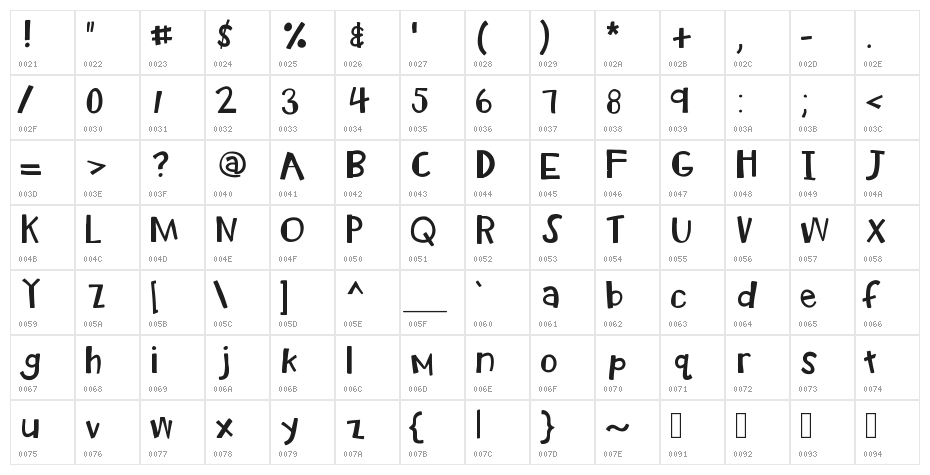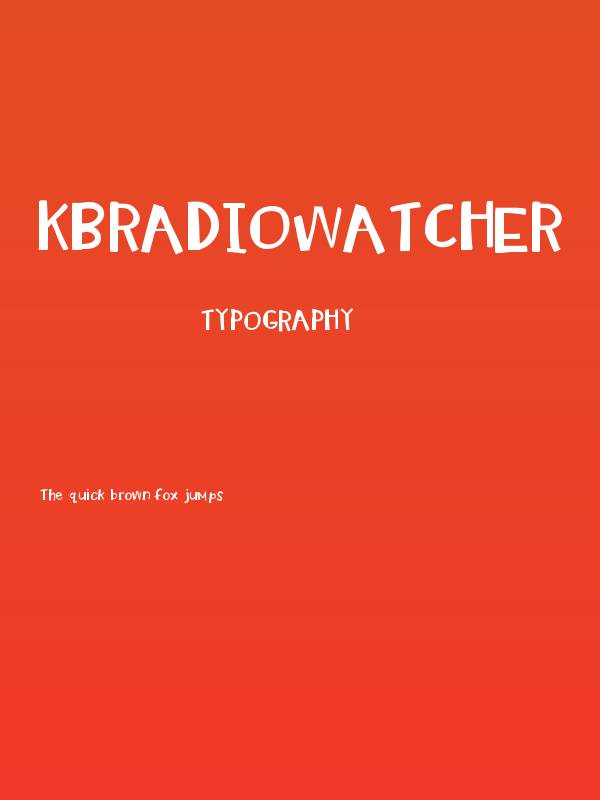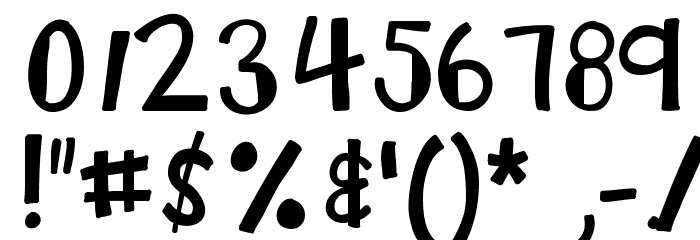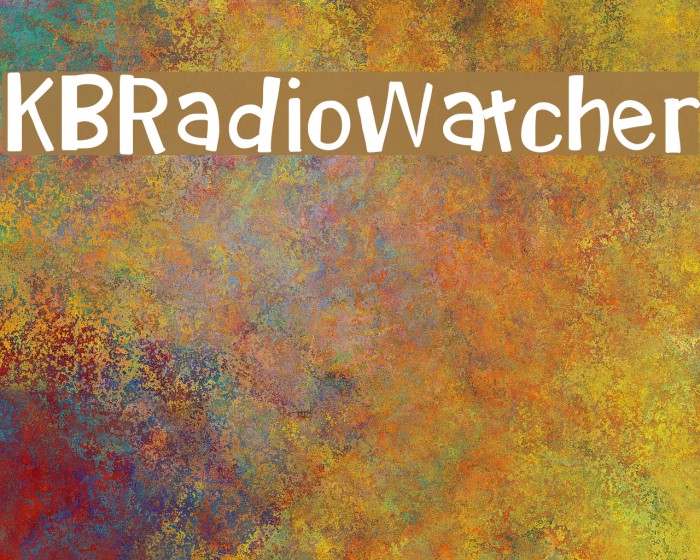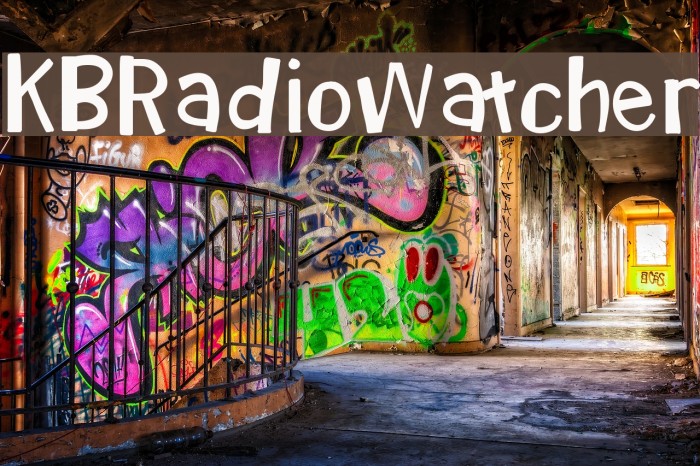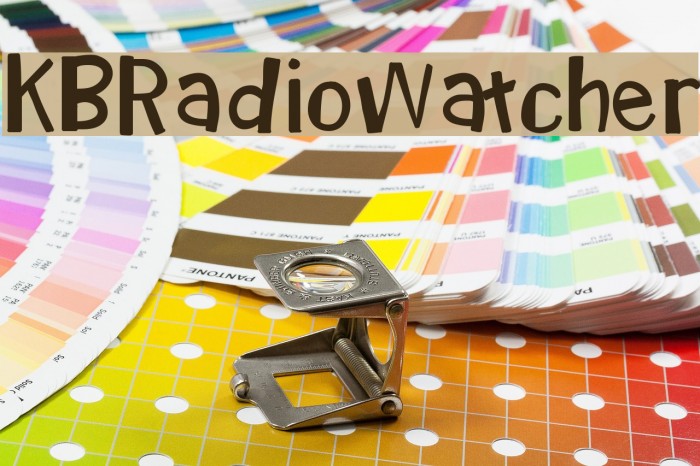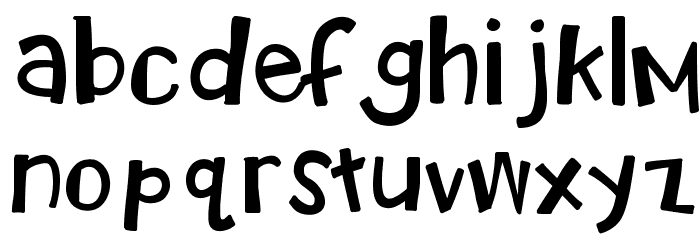
KBRadioWatcher Font
KBRadioWatcher Description
This playful and quirky font features a hand-drawn style with irregular, slightly wavy lines that give it a whimsical and informal appearance. The uppercase letters are bold and slightly condensed, while the lowercase letters maintain a consistent height with a casual, uneven baseline. The numerals are rounded and maintain the same playful style, ensuring a cohesive look across all characters. Special characters are creatively designed, adding to the font's overall charm. The font's unique style makes it ideal for projects that require a fun and engaging aesthetic.